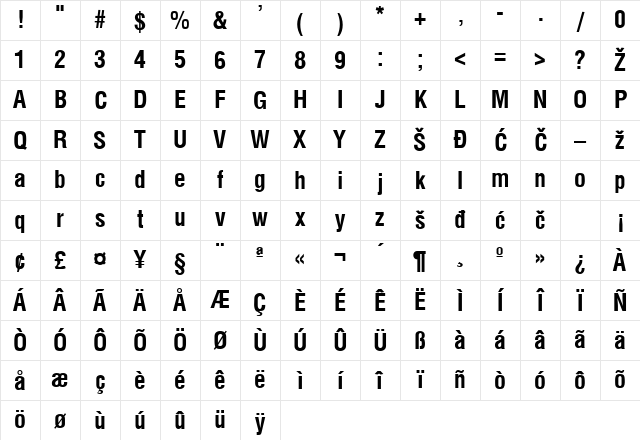
Complete SwizConb Regular glyph index. Displaying only characters natively supported by SwizConb Regular font.
SwizConb is a composed and adaptable typeface that performs quietly and consistently across a wide range of design contexts.